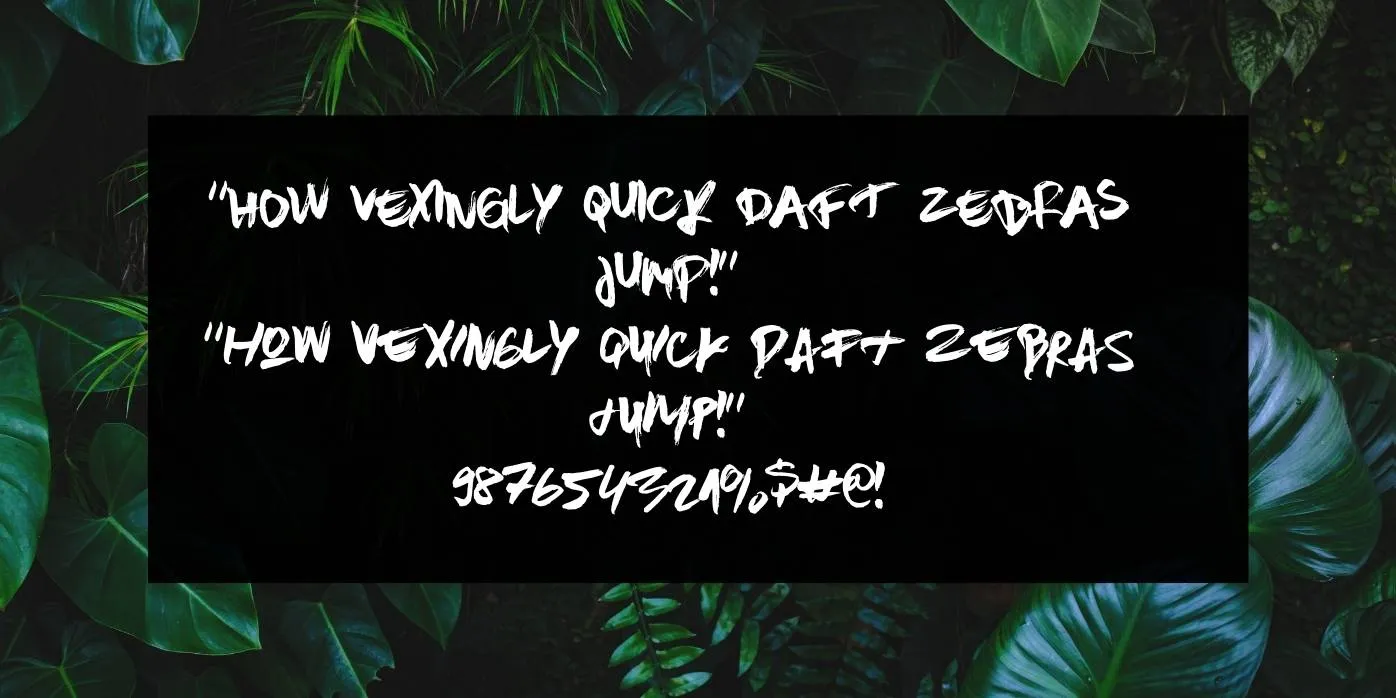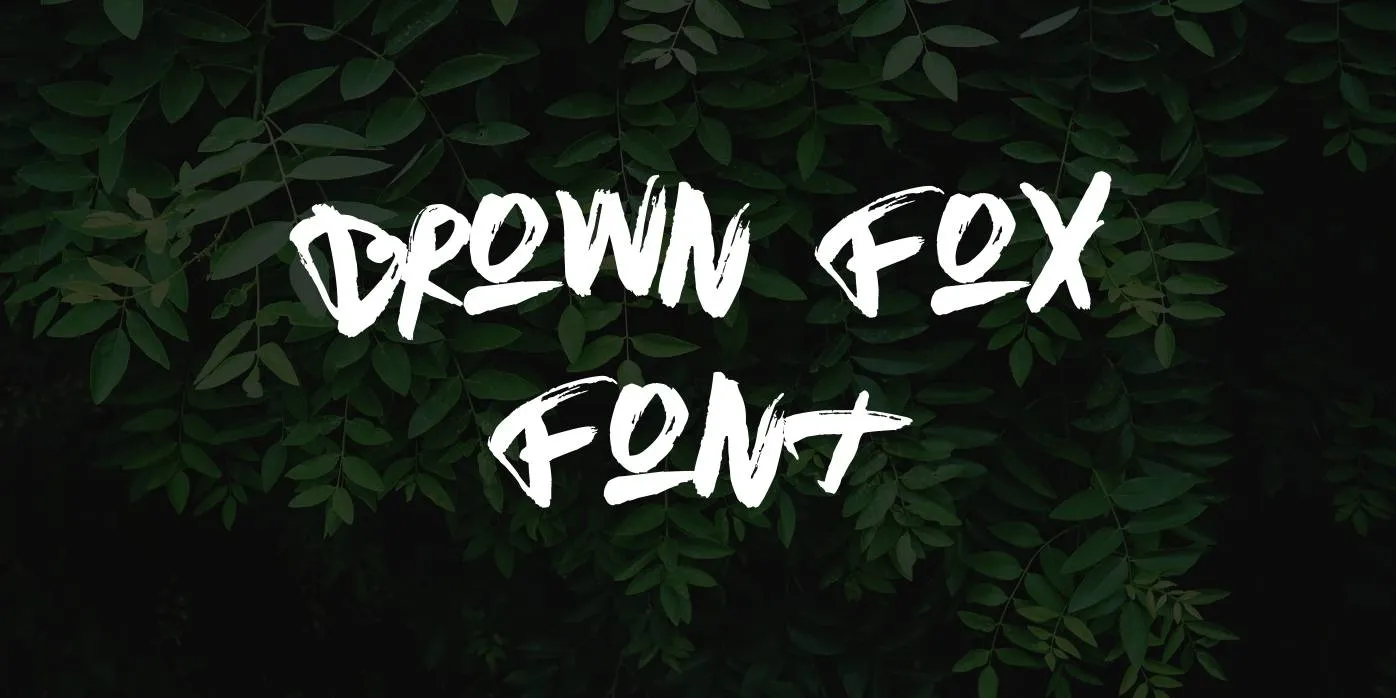
Brown Fox Font
Brown Fox Font is a script typeface designed by Erik Spiekermann. It was released in 1990 and has since been used extensively in both digital and print media. The design of this font is based on the Akzidenz-Grotesk typeface, which was popular in Germany in the late 19th century. This font is characterized by its strong vertical strokes, which give it a commanding and powerful appearance.
It is also notable for its wide range of weights, from light to black. The Font family includes six different weights, each with italic and small caps versions. This makes it a total of 24 different fonts. The pairing and similar font to this typeface are selima font which has more than 300 glyphs, upper and lowercase, and a wide range of language supports.